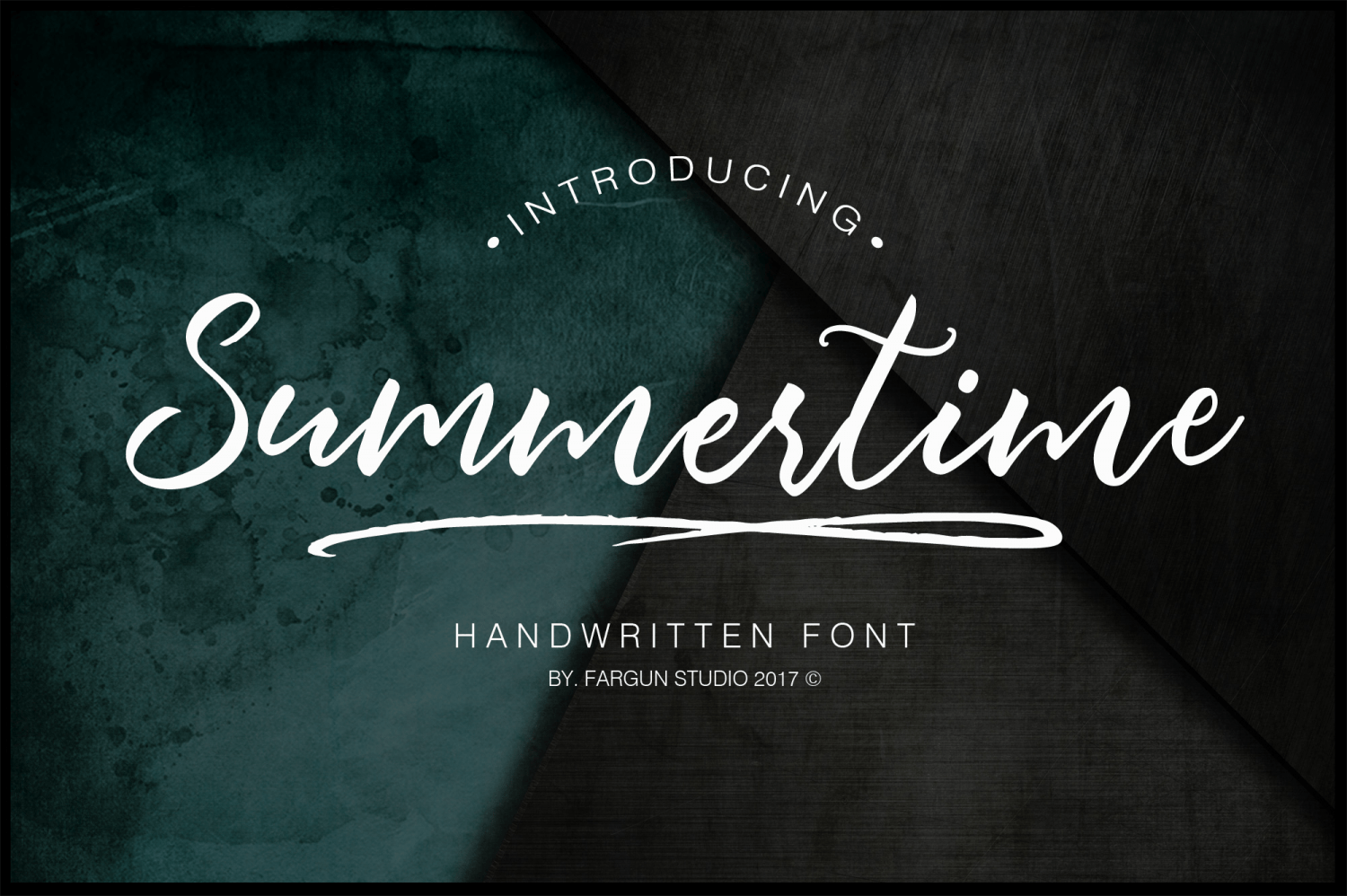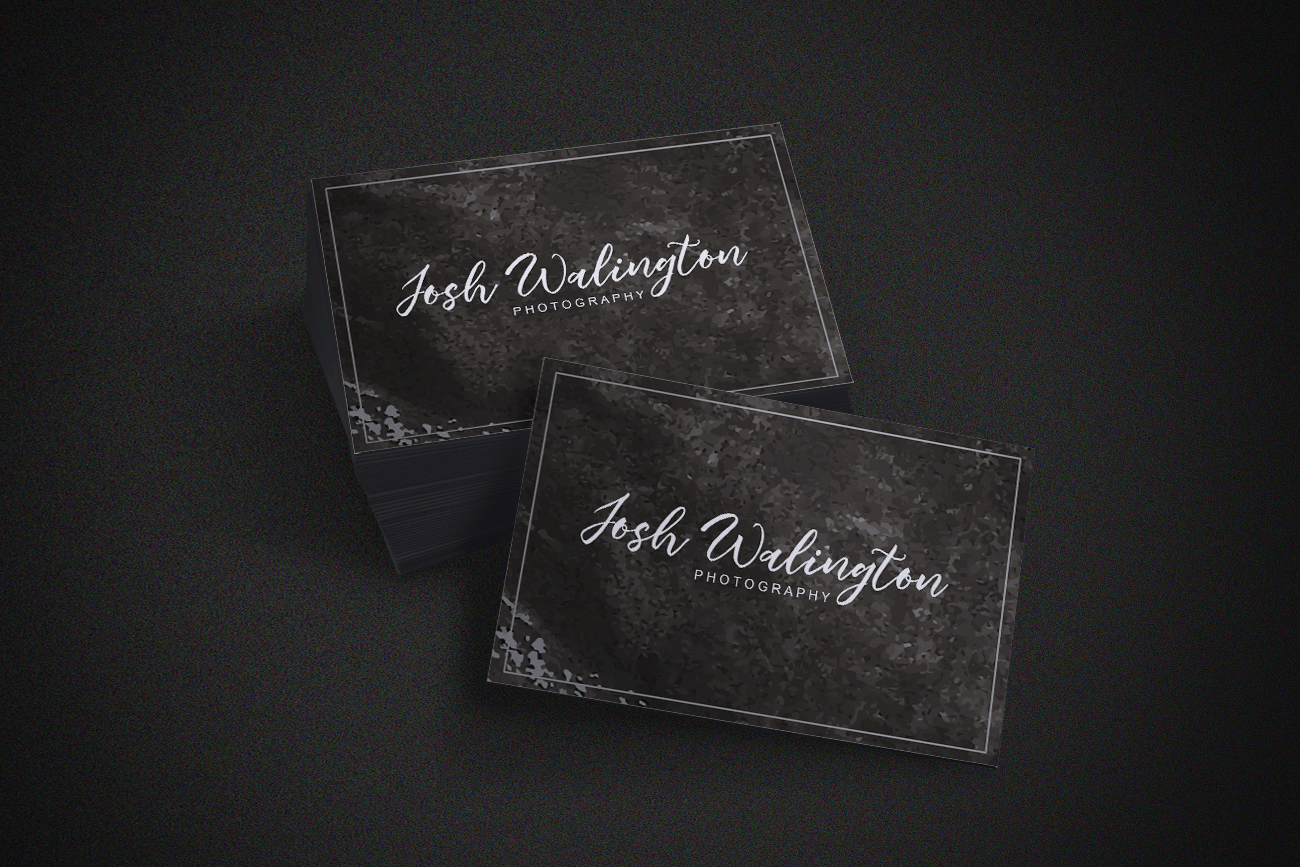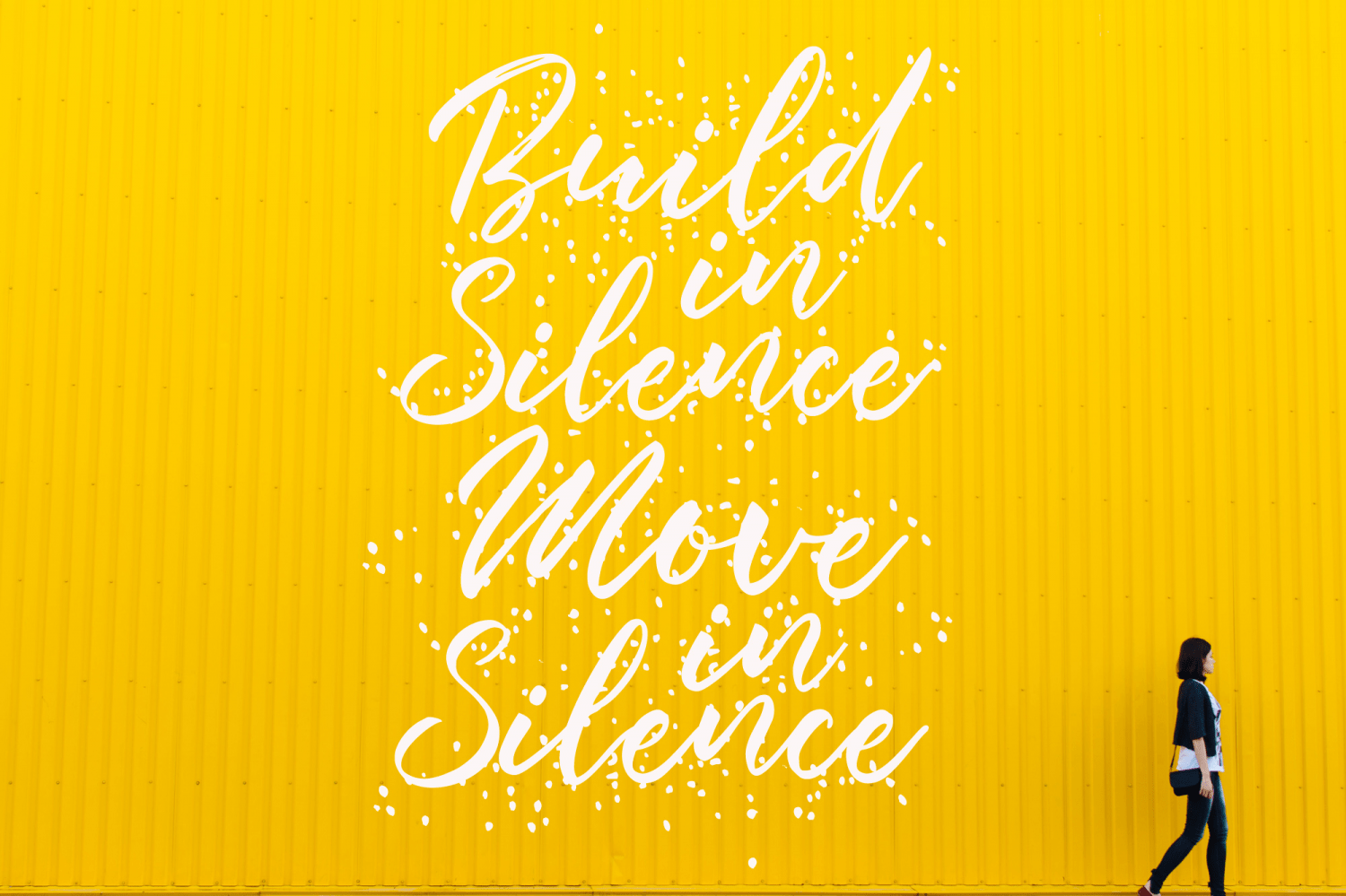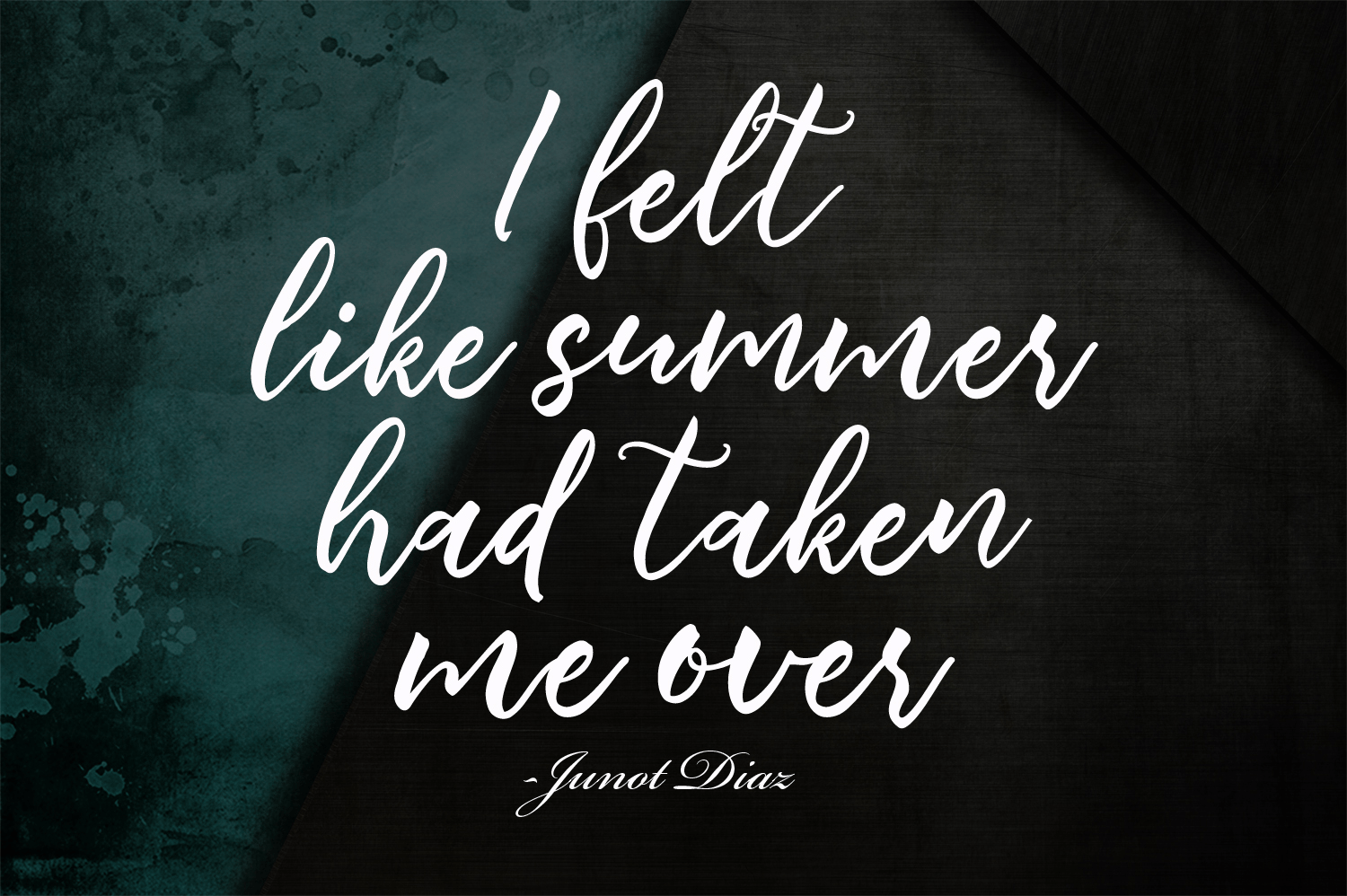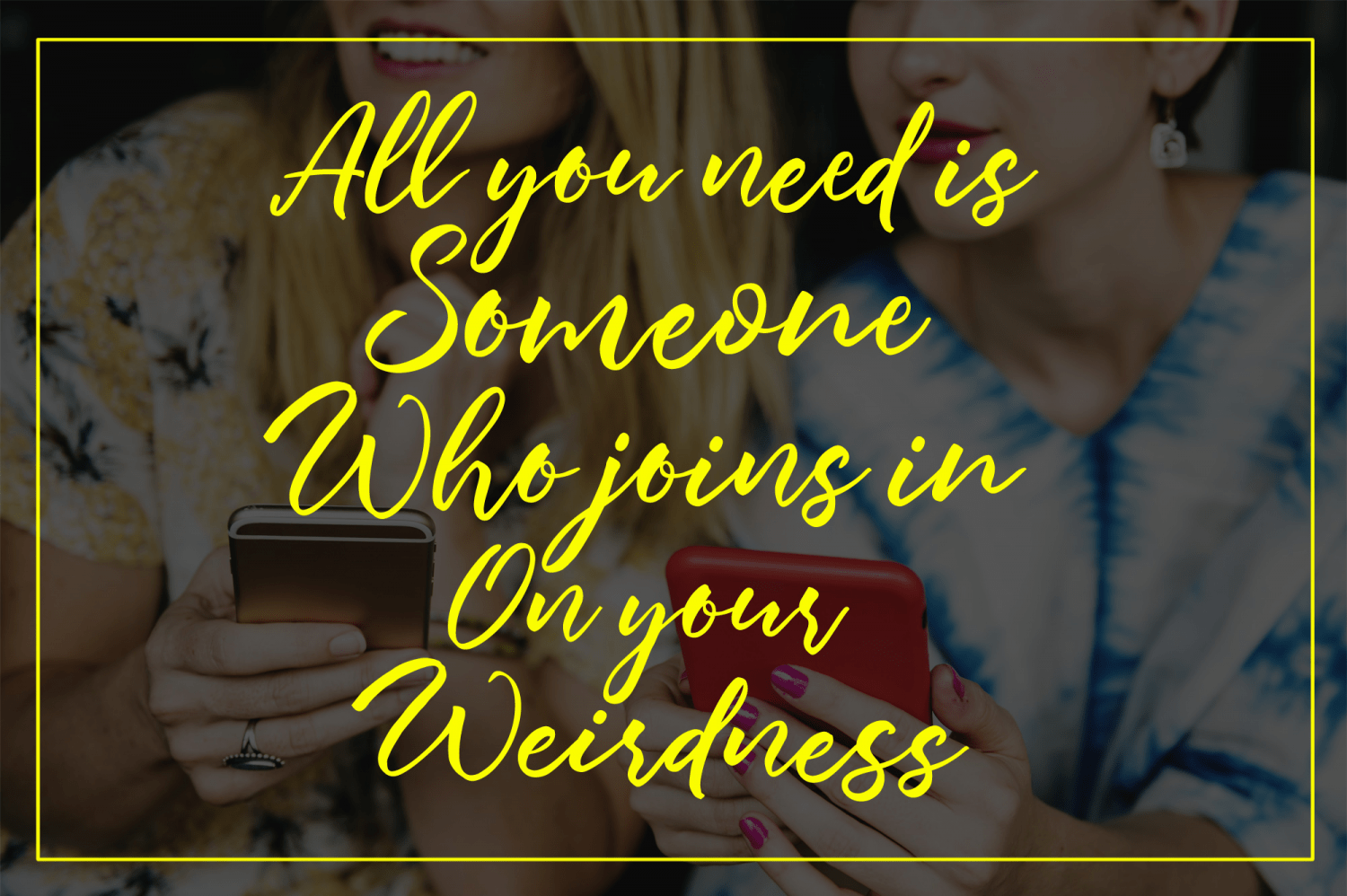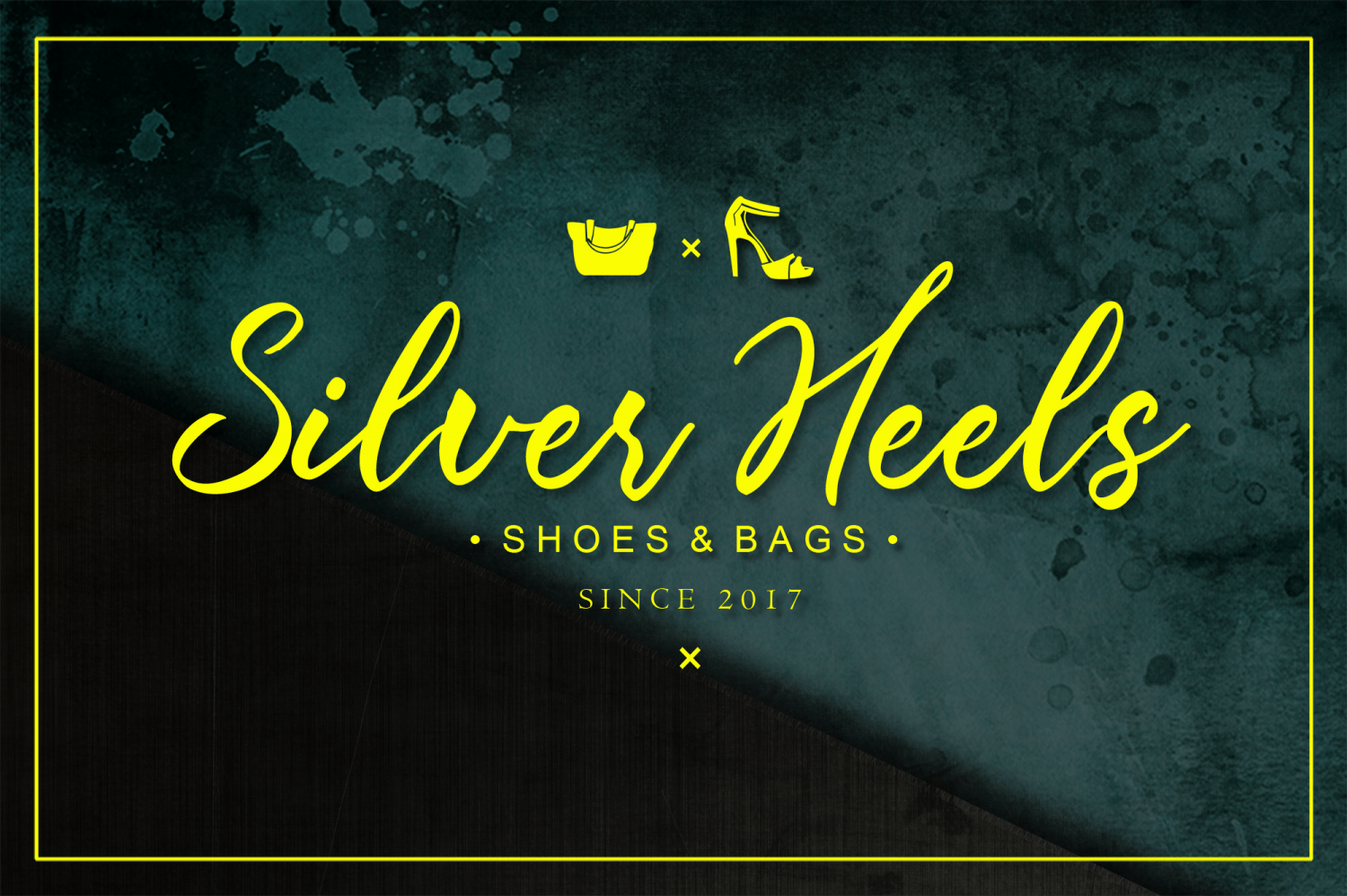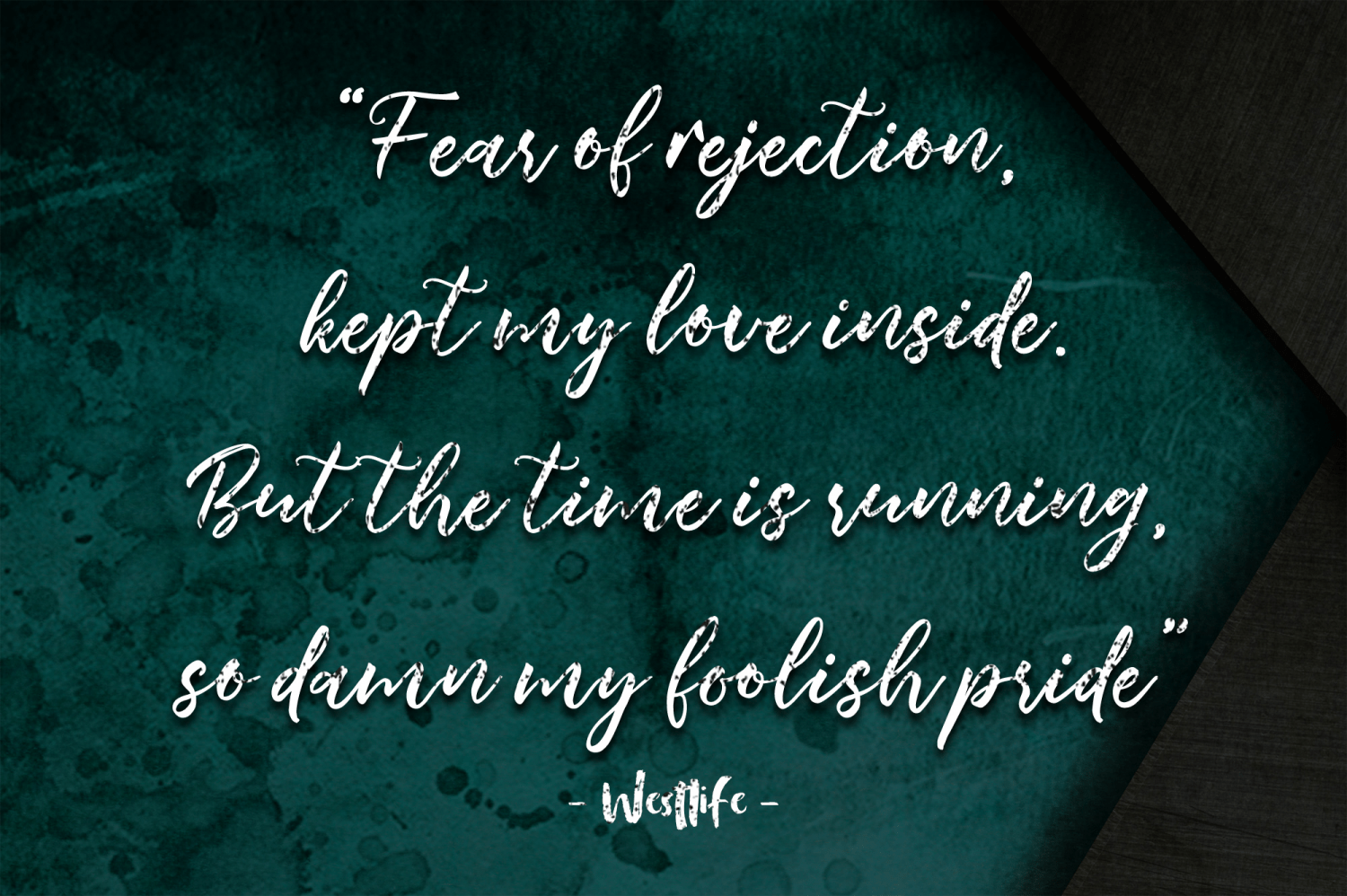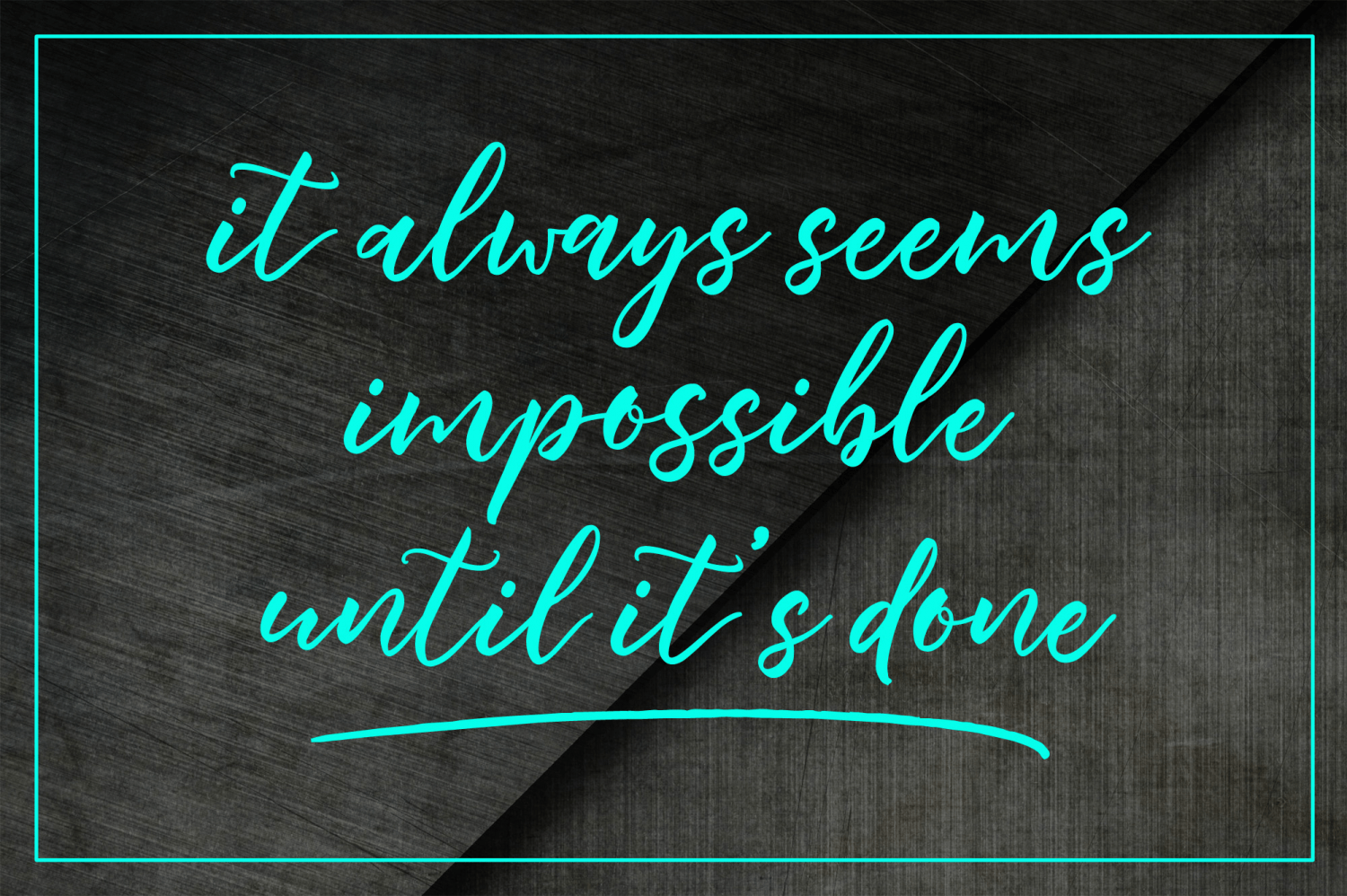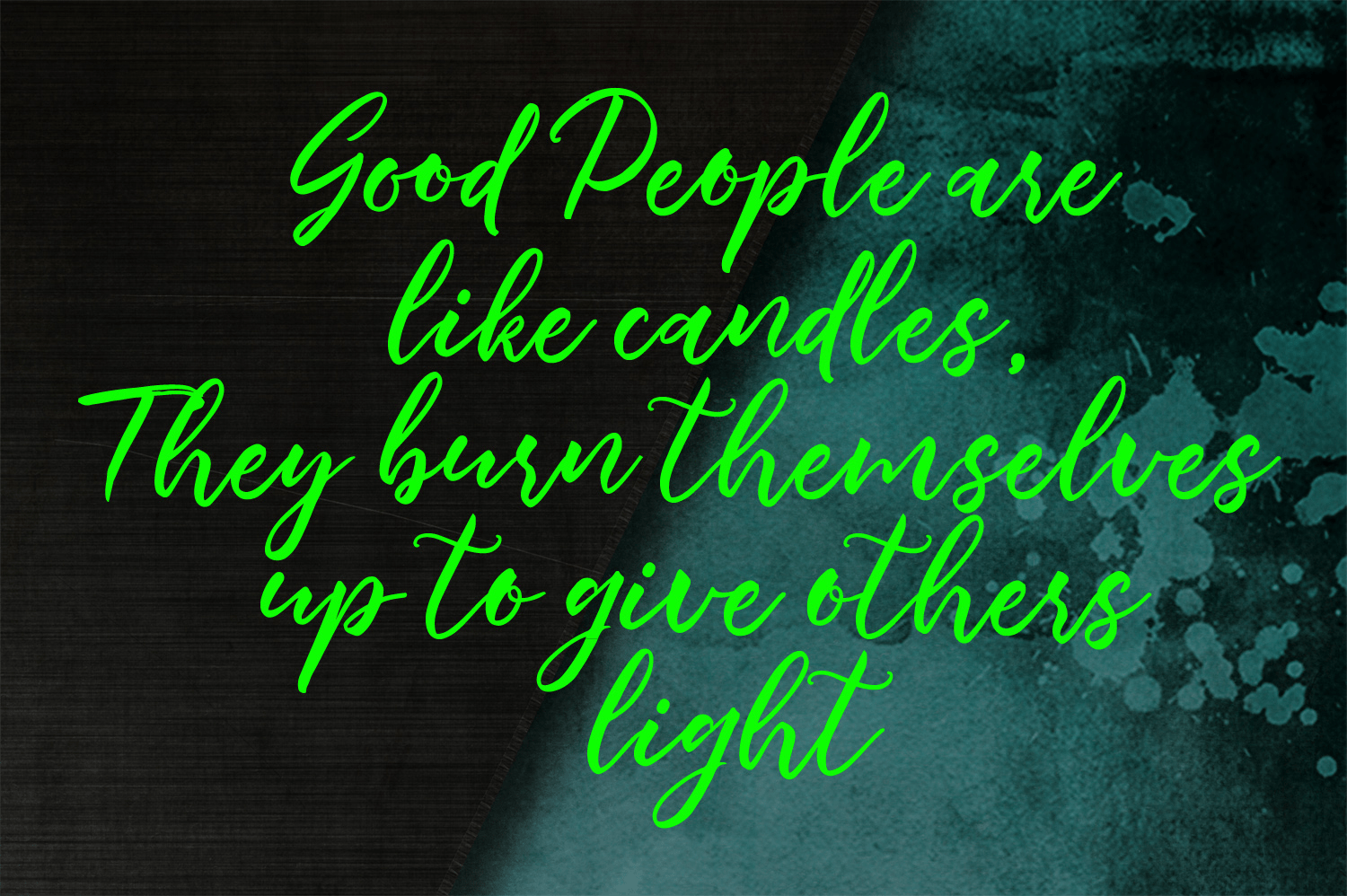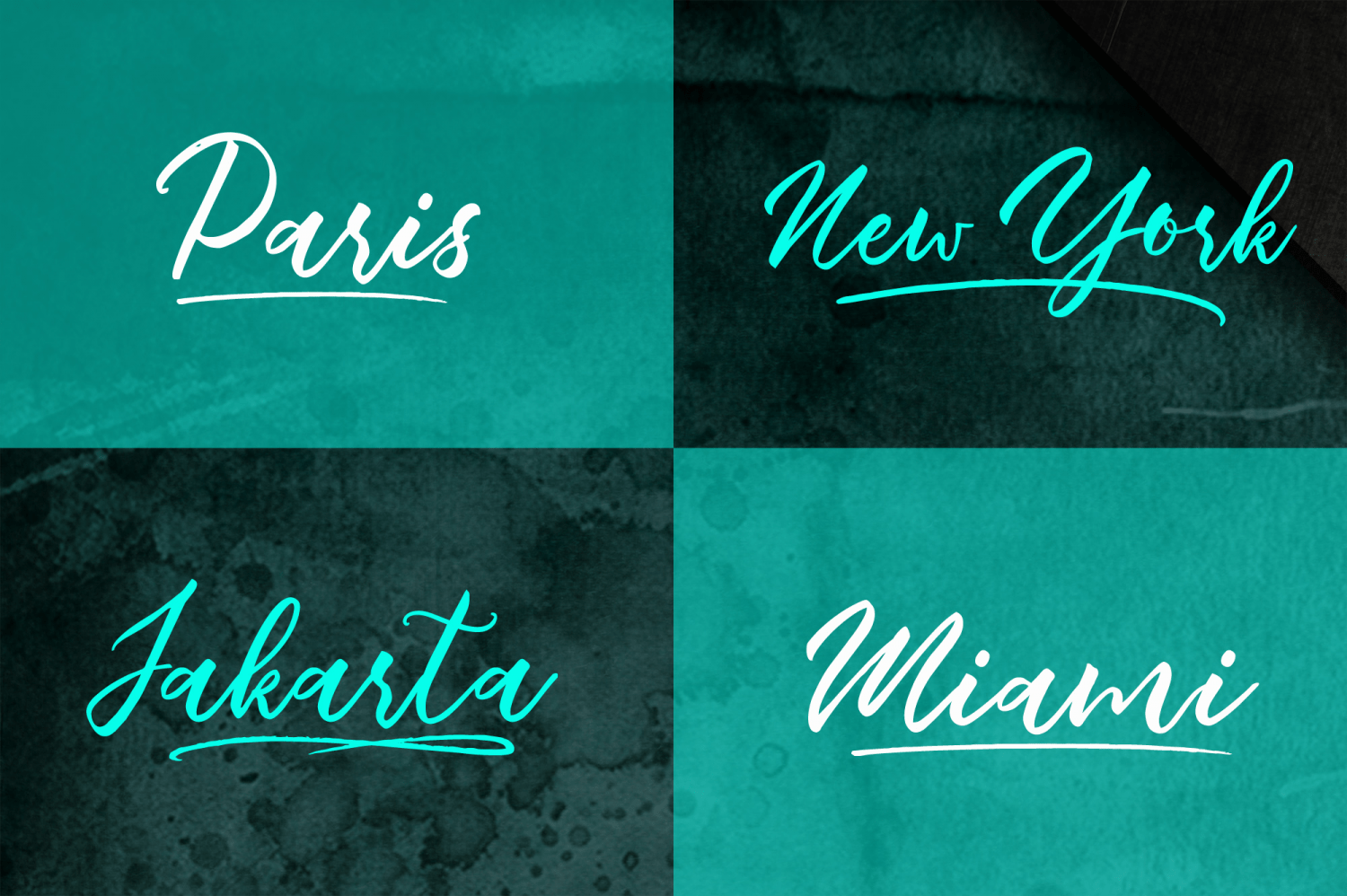
Summertime
Font Family by Fargun Studio
Handwritten font with a signature style. Perfect for branding projects, homeware designs, product packaging or simply as a stylish text overlay to any background image.
Alternates!
Summertime has an entire alternate lowercase glyph set. This is accessible simply by their own separate font file - just install this as normal and select ?Summertime Alt' or ?Summertime Swash? in your text-tool.